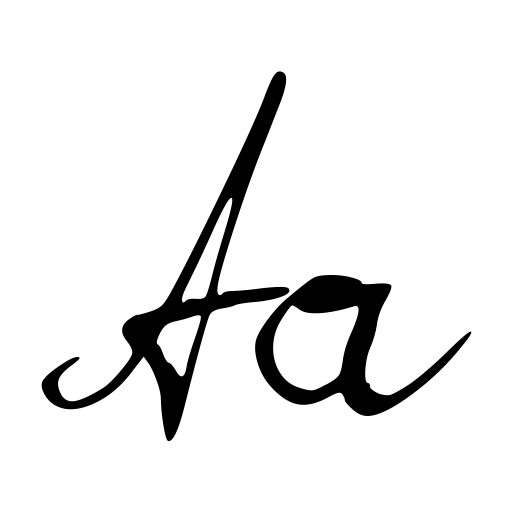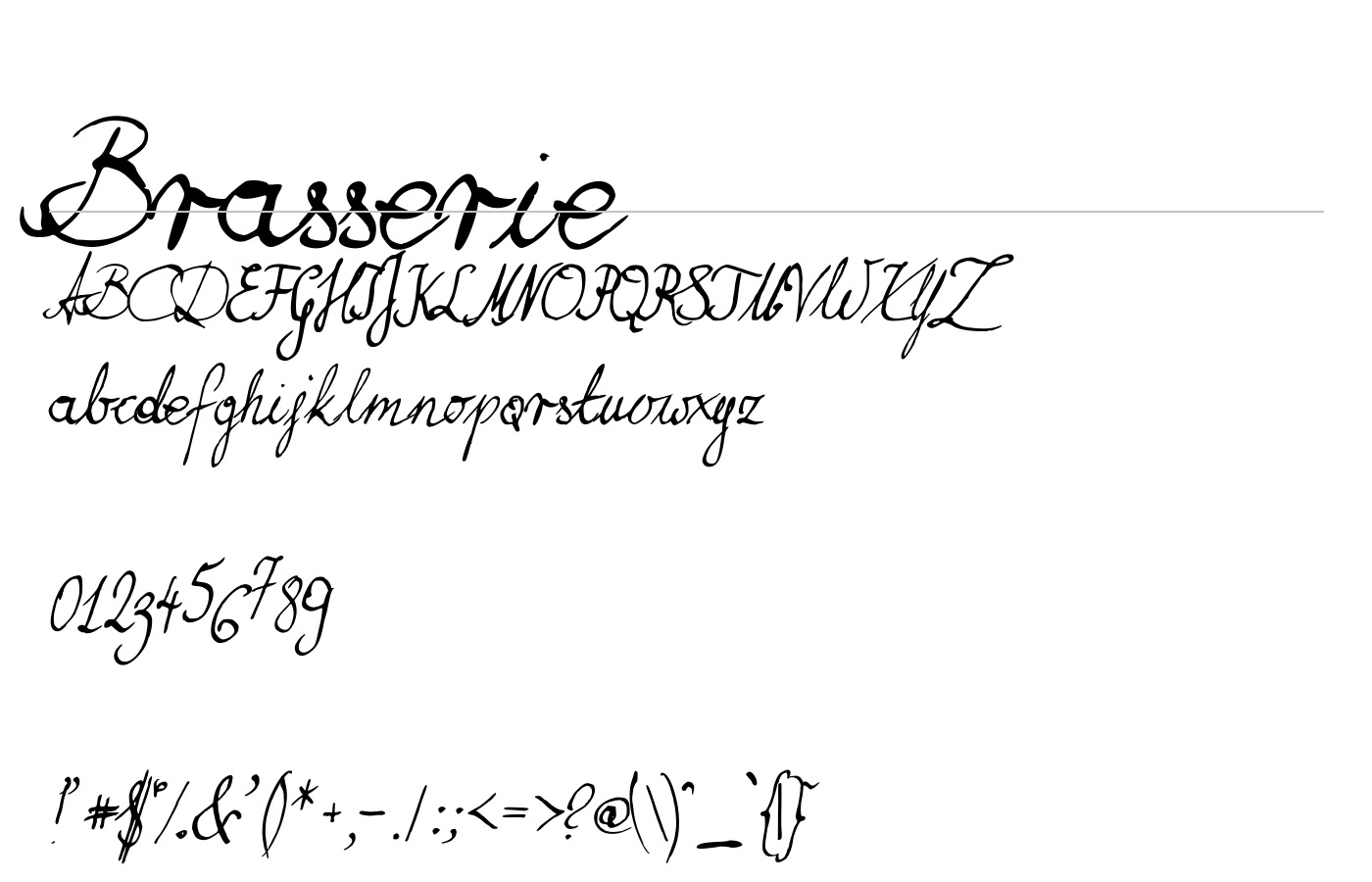
Brasserie Font is an elegant, handwritten script with a delicate and flowing style that captures a sophisticated and artistic feel. Its fine, curvy strokes and slightly uneven character shapes give it a personal, handcrafted touch, making it perfect for invitations, branding, and creative projects that need a refined yet approachable look. This font works well in designs that seek to convey charm and elegance with a distinct, individual personality.
Brasserie Font
About Brasserie Font
| Font family | Brasserie Font |
| Languages supported | Latin, Symbols, Cyrillic |
| Designer | Aga Silva |